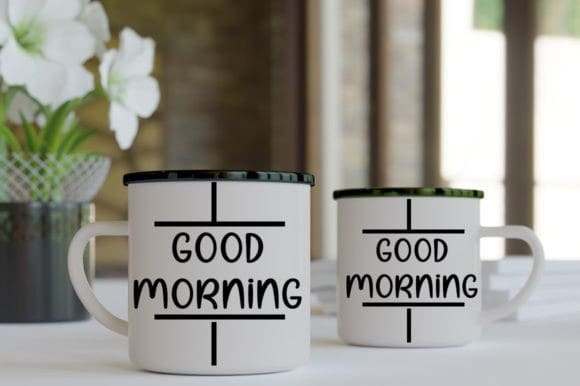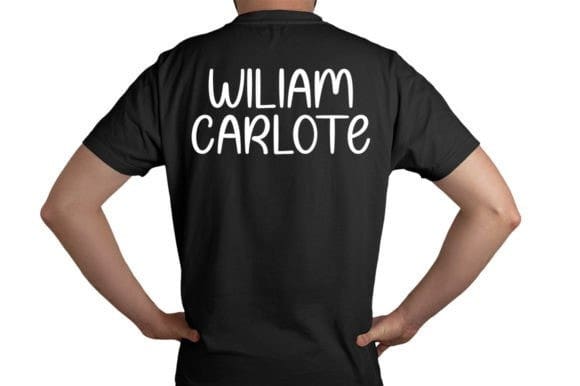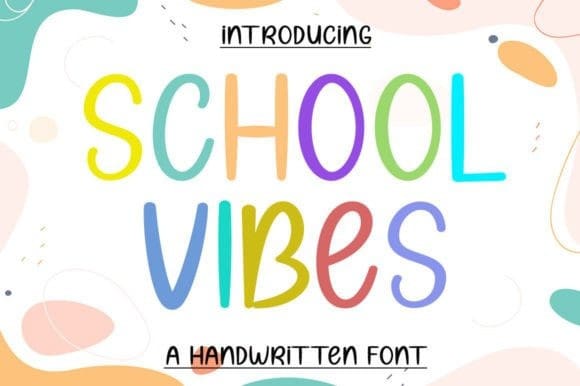
School Vibes Font
School Vibes Font is a fun and casual handwritten font. Incredibly versatile, this font is suitable for a wide pool of design ideas.